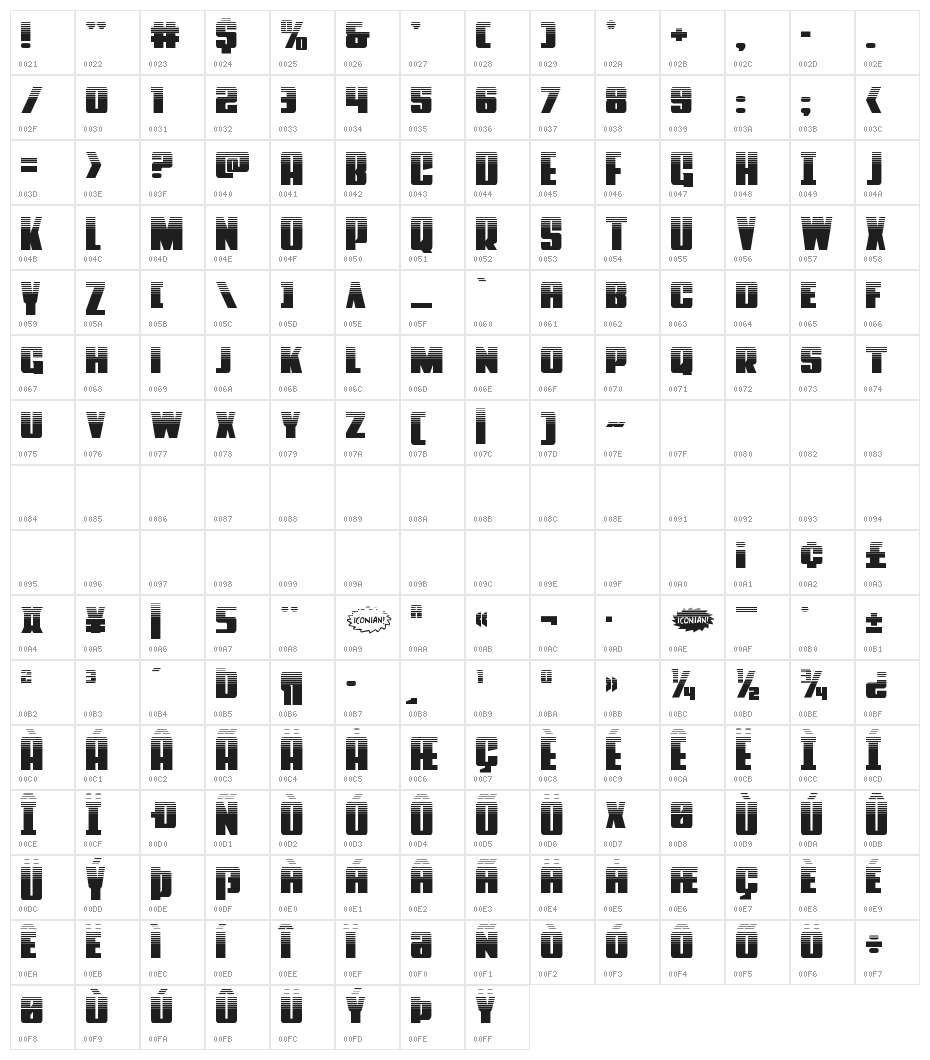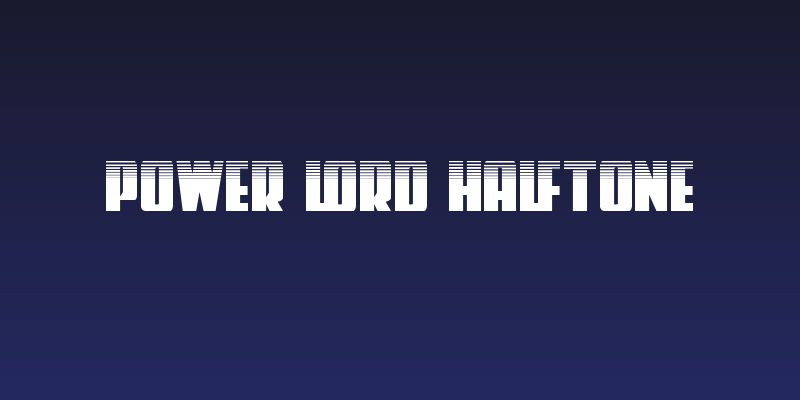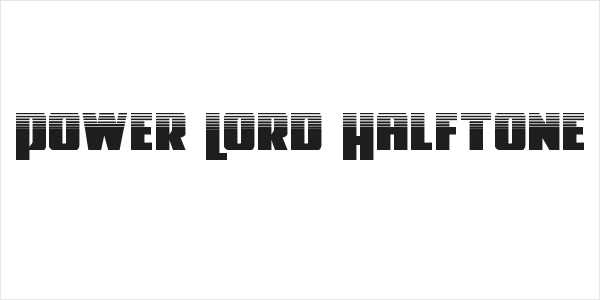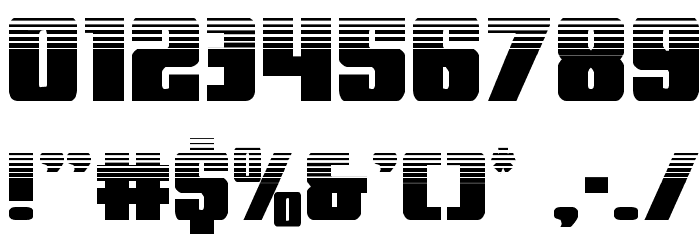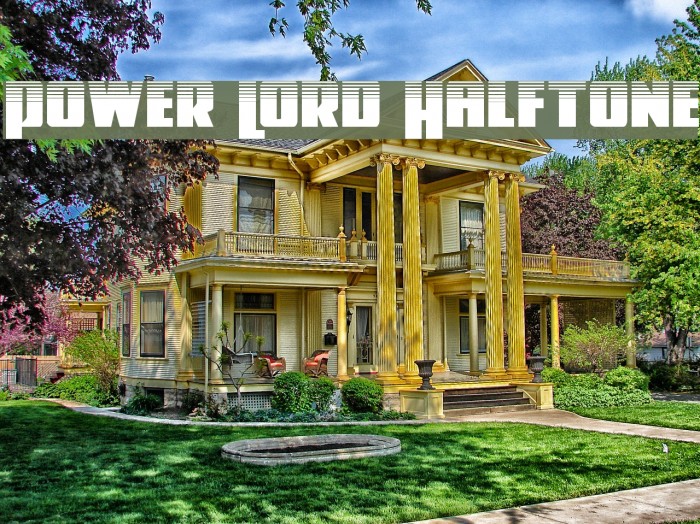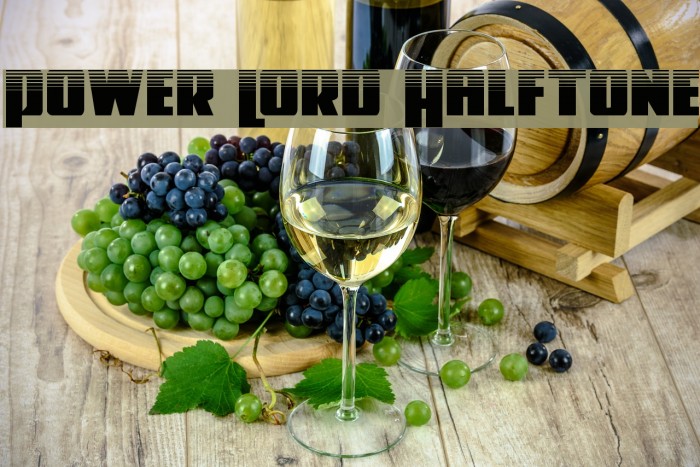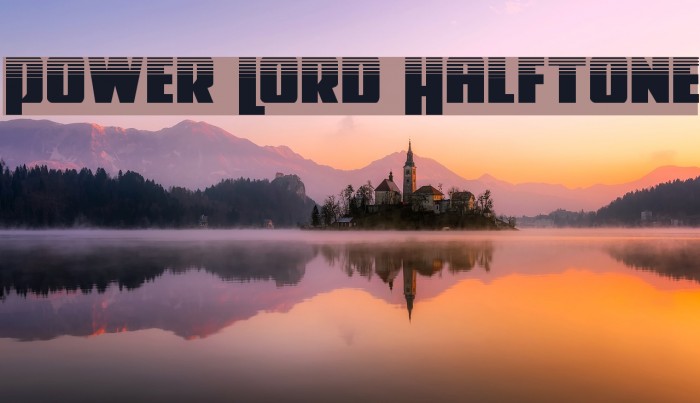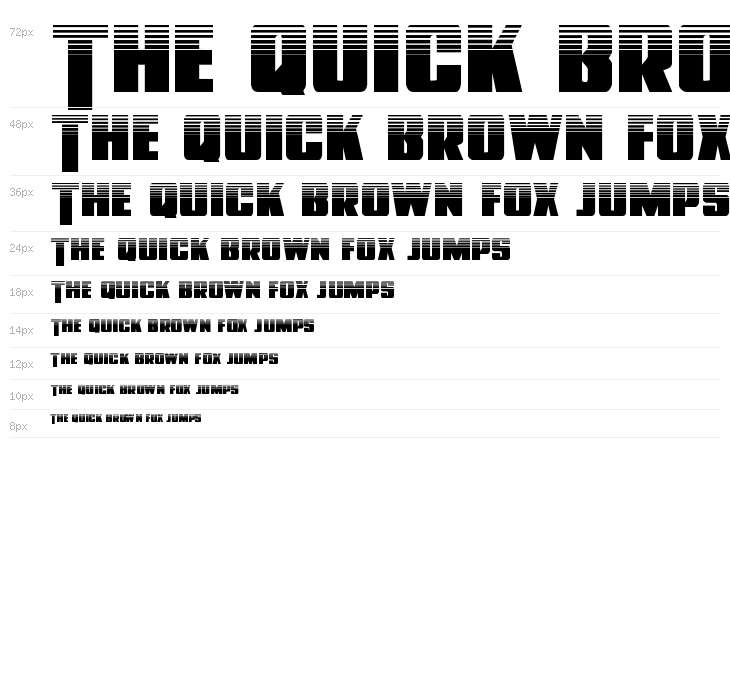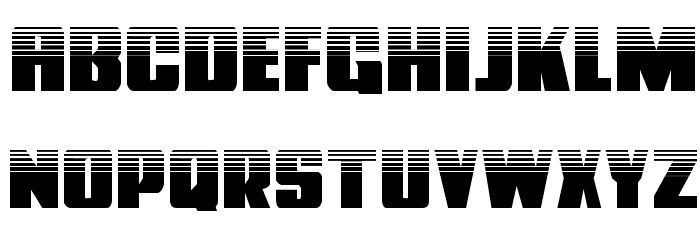
Power Lord Halftone Font
Power Lord Halftone Description
This font features a bold, impactful design with a halftone effect that creates a sense of movement and energy. The uppercase letters are characterized by thick, solid strokes with horizontal lines that gradually fade, adding a dynamic texture. The numerals and special characters follow the same design principle, ensuring consistency across all glyphs. Its unique style makes it stand out, perfect for grabbing attention and conveying a strong, modern aesthetic.